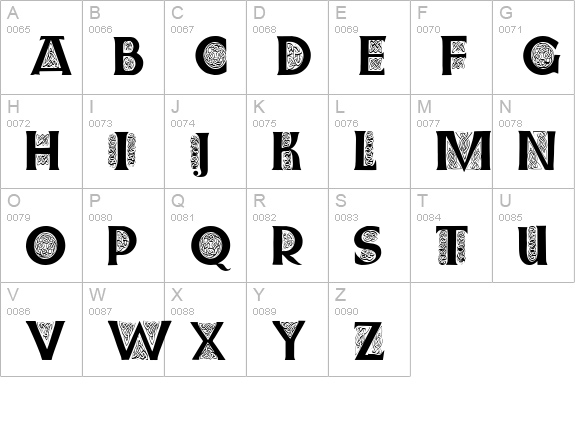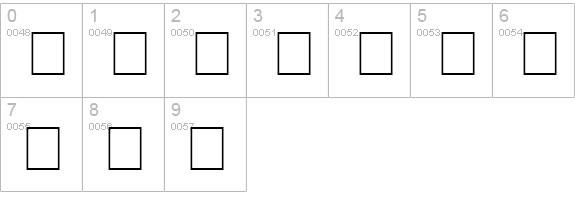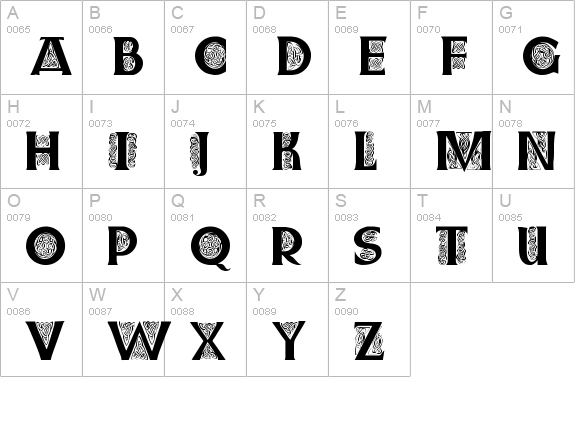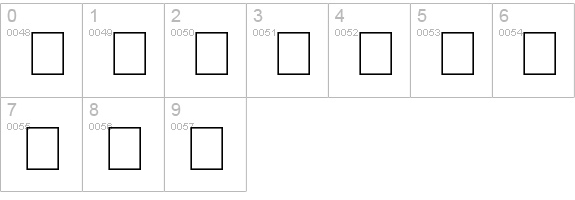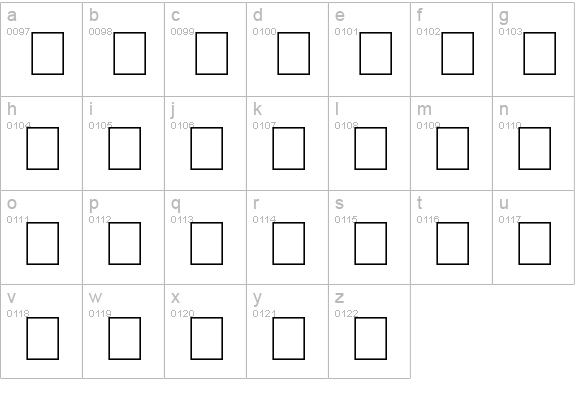
Farnoe Initials Font Details
Farnoe Initials font is a stunning display typeface that captures a sense of elegance and sophistication. With its intricate details and ornate design, this font is perfect for adding a touch of luxury to any project. The delicate lines and curves of the letters create a sense of timeless beauty, making Farnoe Initials font a versatile choice for invitations, logos, and other creative designs. What's even better is that Farnoe Initials font is available for free download at FontsMarket.com. This means you can easily access this exquisite font and use it in your projects without any cost. Don't miss out on the opportunity to enhance your designs with the beauty of Farnoe Initials font - download it for free today!